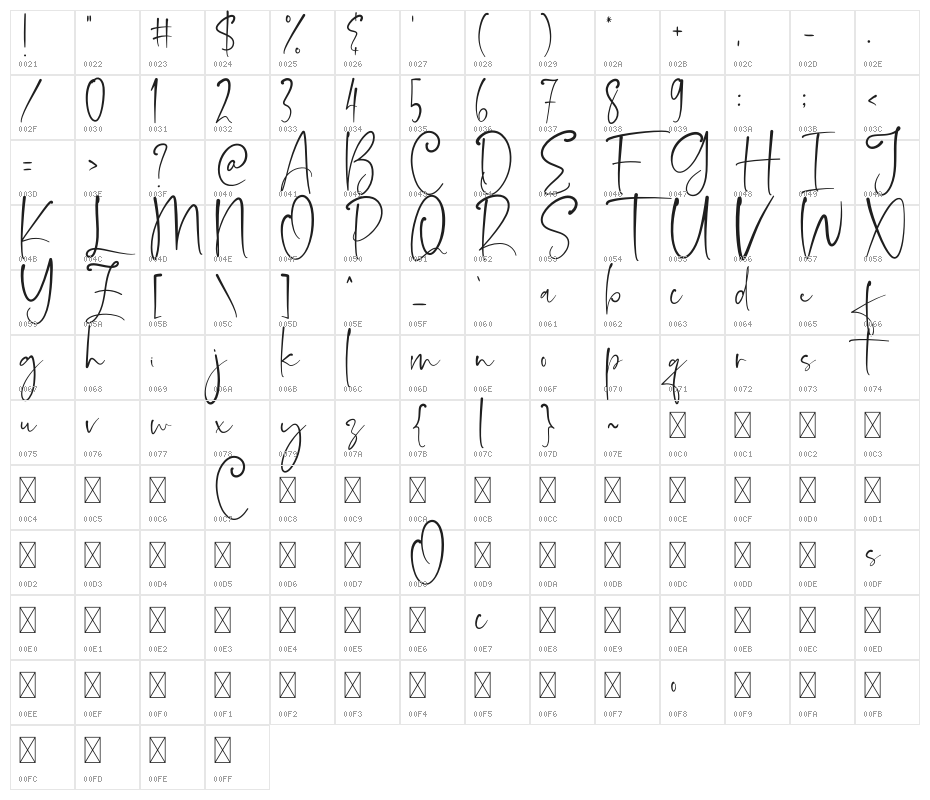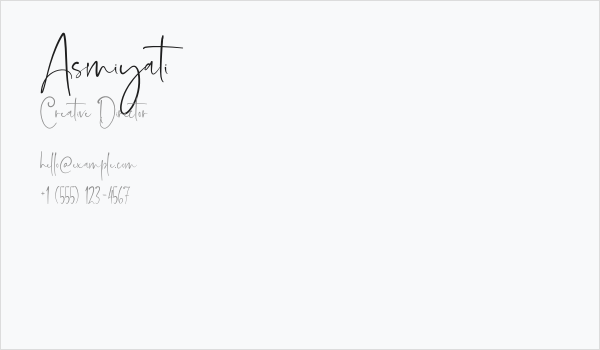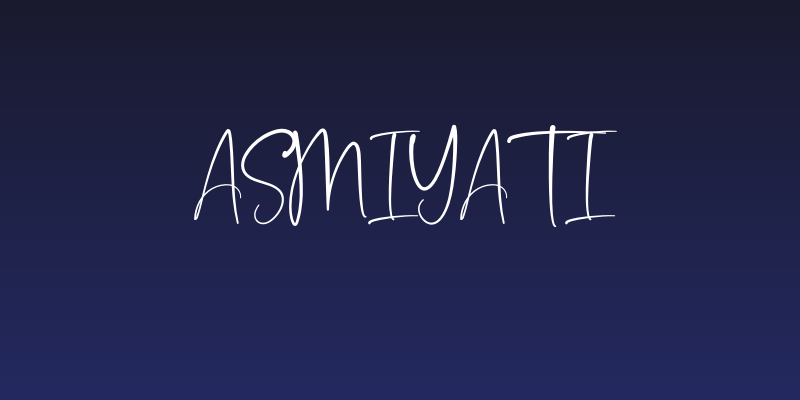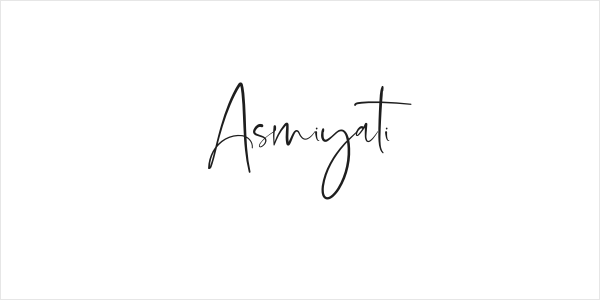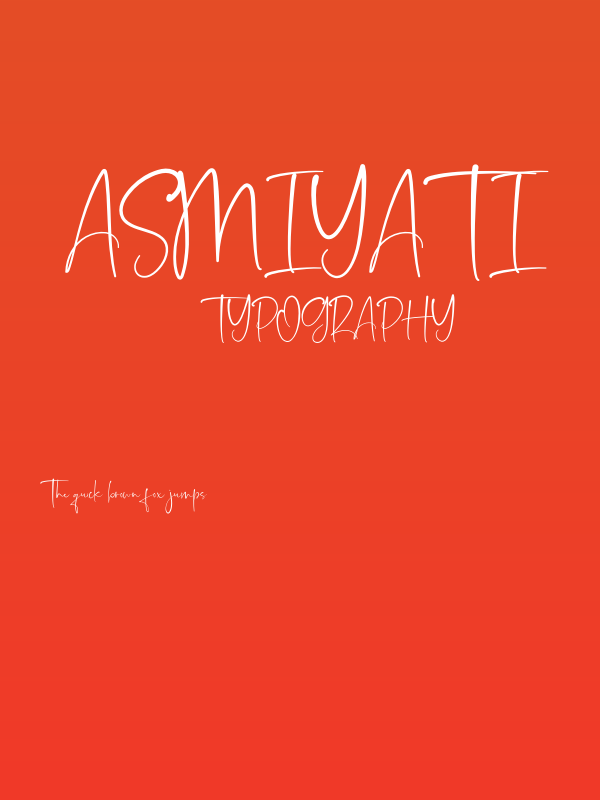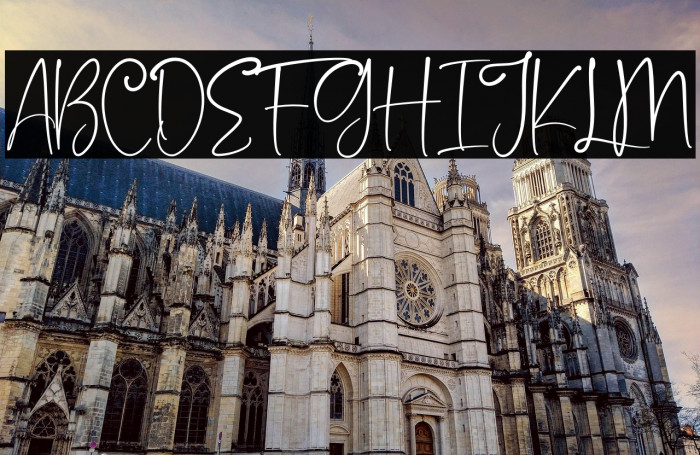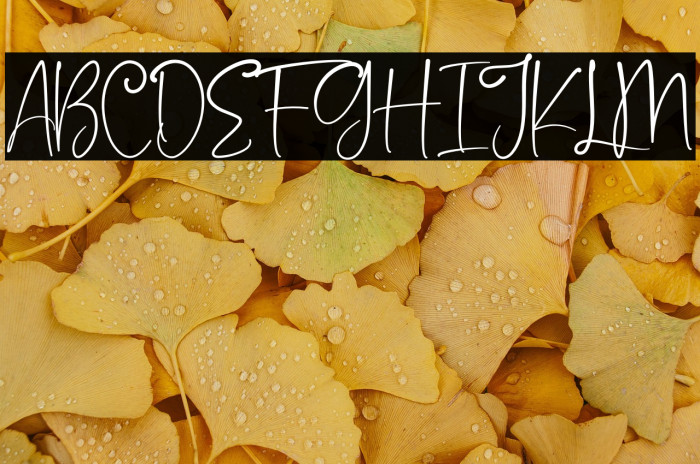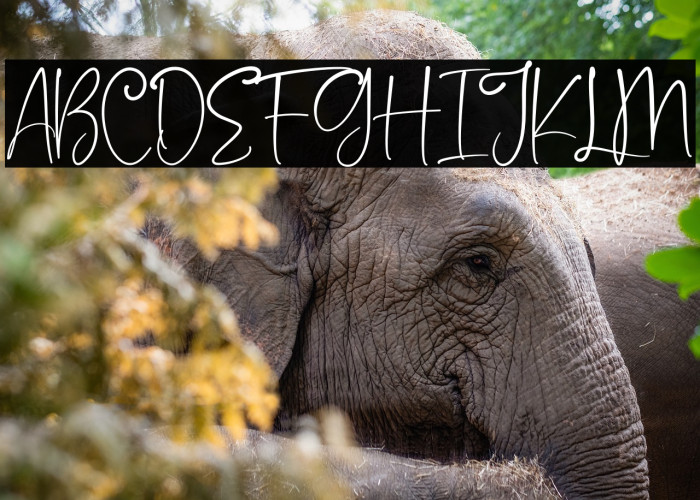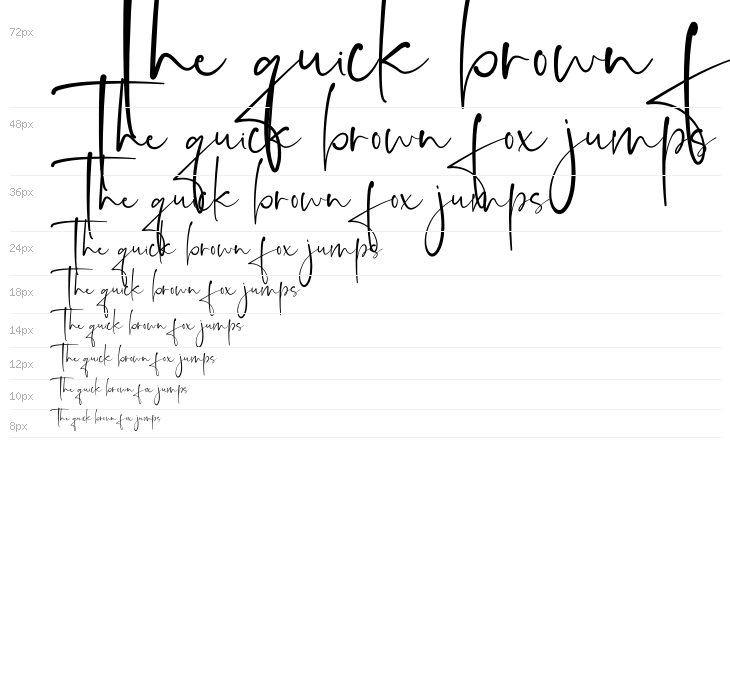
Asmiyati Font
Asmiyati Description
This font features a lively and expressive handwritten style, characterized by its fluid and dynamic strokes. The uppercase letters are tall and slender, with a playful, whimsical flair that adds a sense of movement and energy. The lowercase letters maintain this fluidity, with some letters extending below the baseline, enhancing the font's organic feel. Numbers and special characters are consistent with the overall style, offering a cohesive look. The font's thin lines and varying stroke widths contribute to its artistic and informal appearance, making it ideal for creative projects.
| Proposed Projects | Ideal for greeting cards, invitations, personal branding, and artistic projects. |